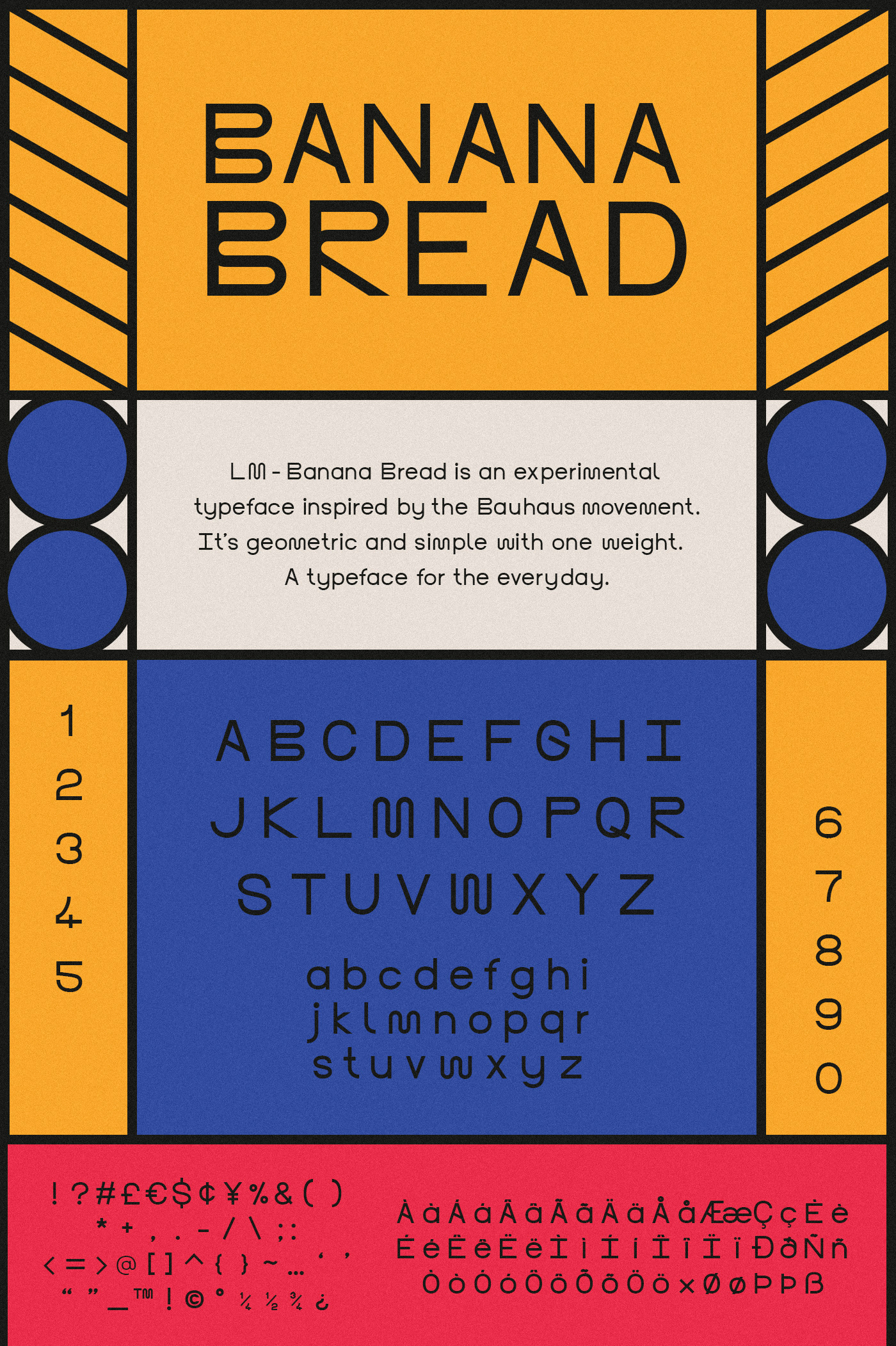
Banana Bread is an experimental geometric typeface inspired by the Bauhaus movement. It was created by Liah Moss and it’s perfect for any kind of headline, not to mention text blocks.